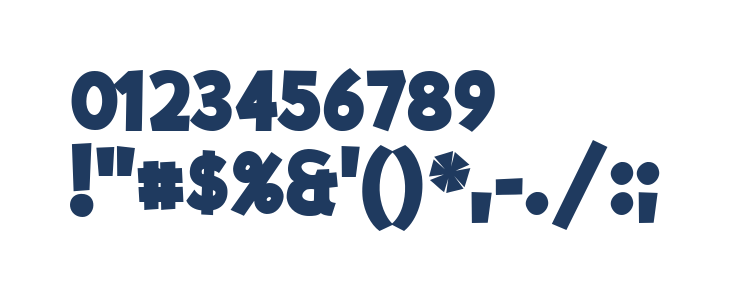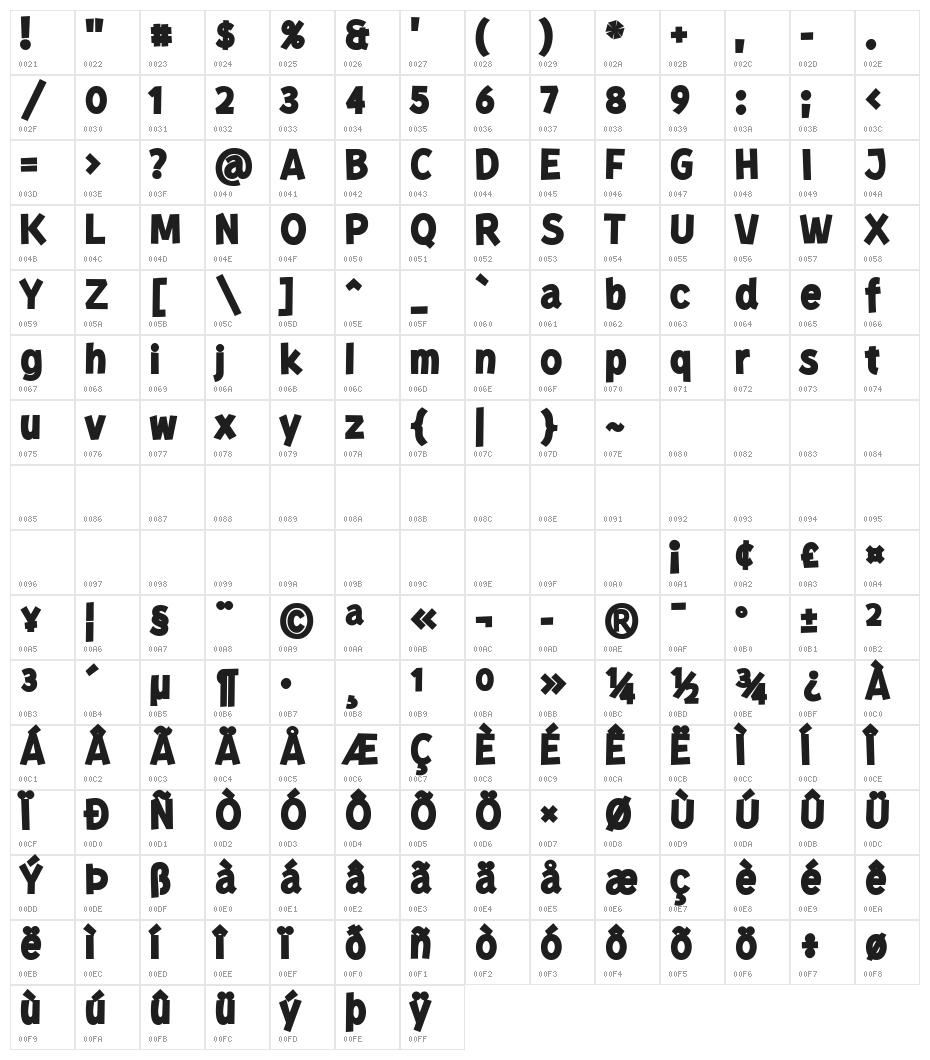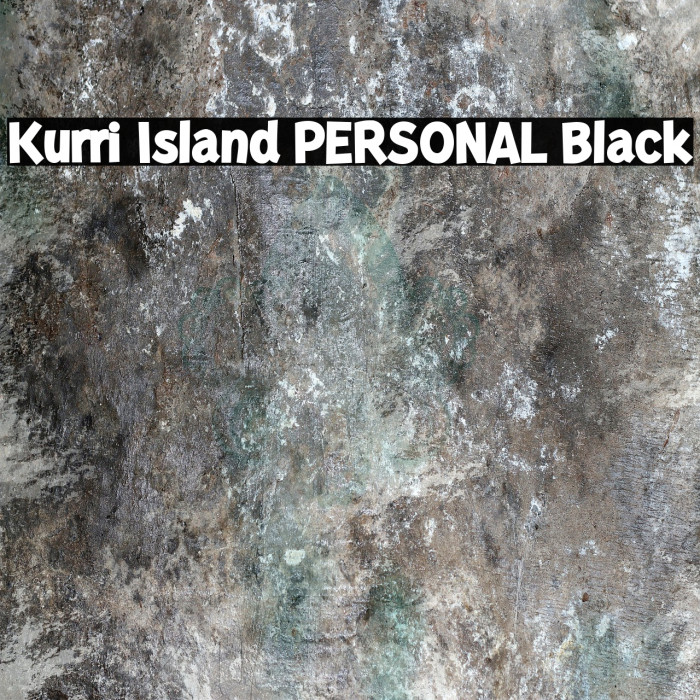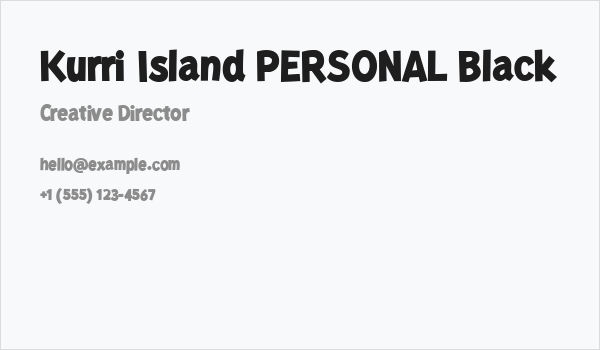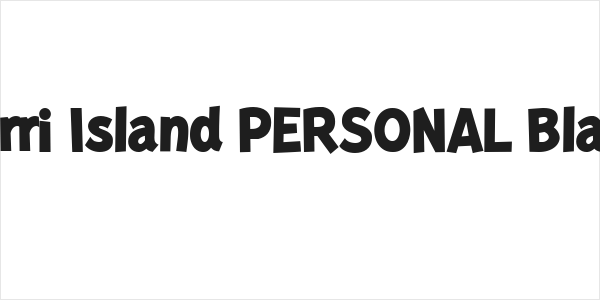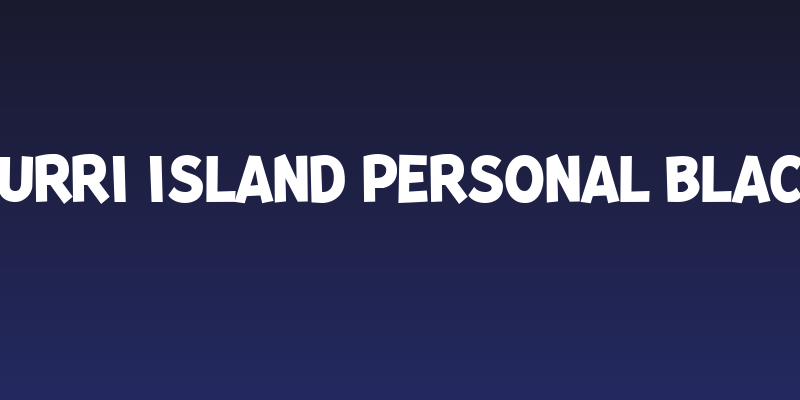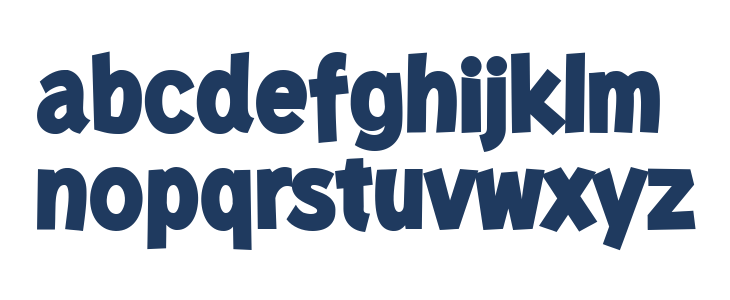
Kurri Island PERSONAL Black Font
Kurri Island PERSONAL Black Description
This font features a bold and playful style with thick, rounded strokes that give it a friendly and approachable appearance. The characters are slightly irregular, adding a whimsical touch to the overall design. The uppercase and lowercase letters maintain a consistent weight, while the numbers and special characters are designed to match the playful aesthetic. The font's boldness makes it highly legible, even at smaller sizes, and its unique style ensures it stands out in any design. The character spacing is relatively tight, which enhances the cohesive look of the text.
| Proposed Projects | Ideal for children's books, playful branding, posters, and social media graphics. |